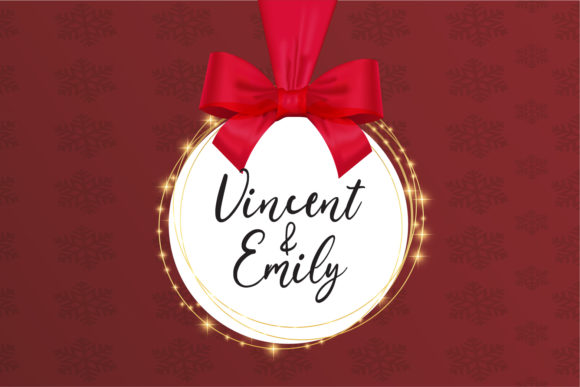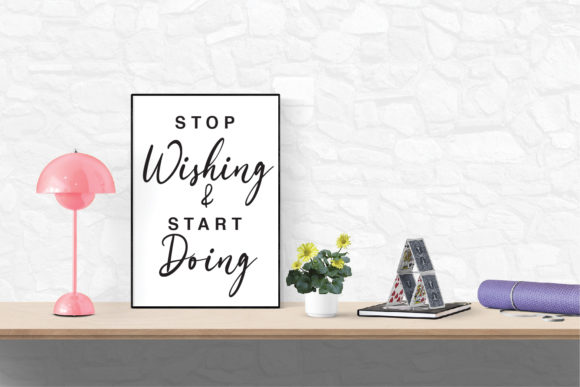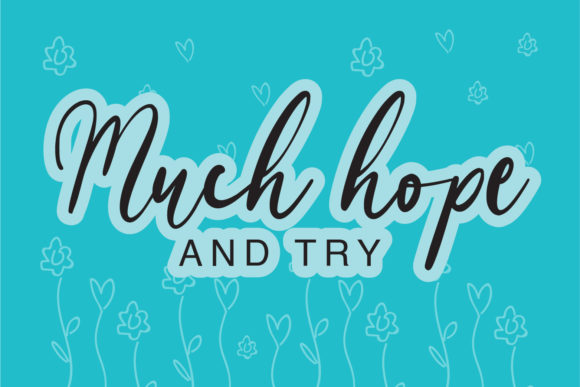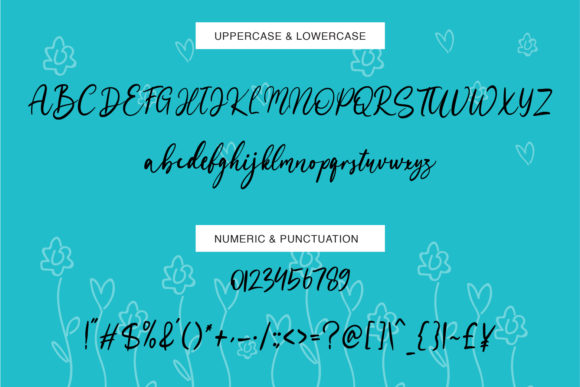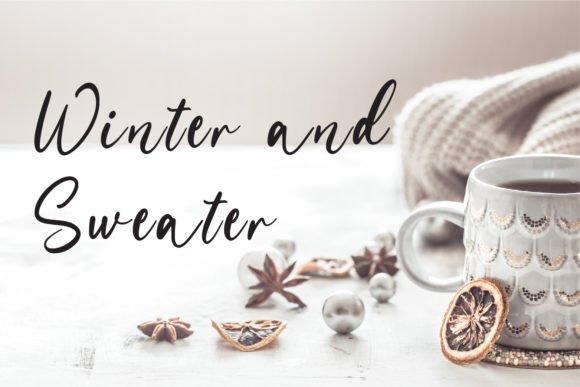
About Mondeste Font
Mondeste is an exquisite script font with sweet and curly accents. It was masterfully designed to become a true favorite. It maintains its classy calligraphic influences while feeling contemporary and fresh. Fall in love with it and bring your projects to the highest level!